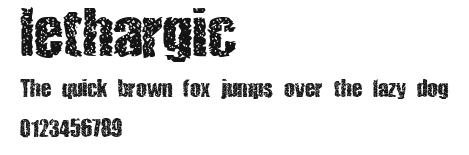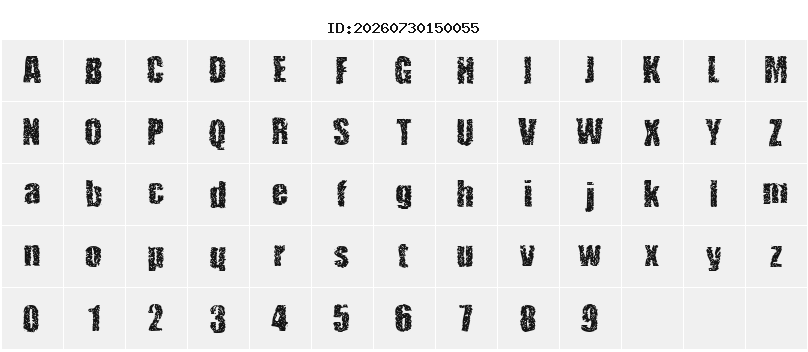
lethargic Preview
• Font Name: lethargic
• Full Font Name: lethargic
• PostScript Name: lethargic
About lethargic.ttf
lethargic.ttf is a modern, elegant sans-serif font designed for ultimate readability and visual harmony. Perfect for branding, headlines, web design, and print materials.